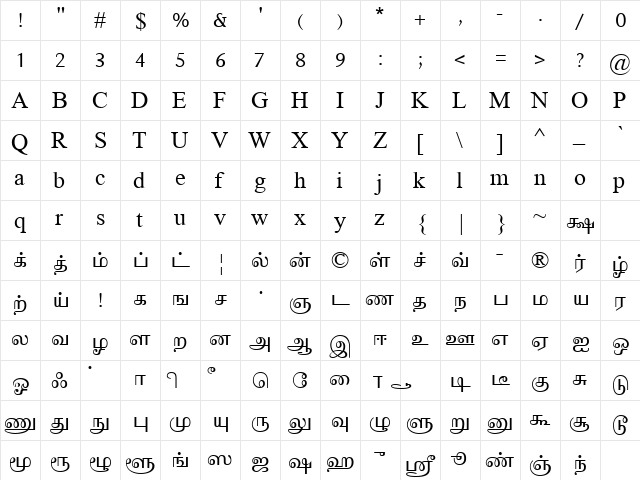
Kanian-Tamilnet Normal
Design Context for Kanian-Tamilnet Typeface
Kanian-Tamilnet offers clean, dependable letterforms without strong stylistic allegiance, making it a practical choice for designers who need flexibility.